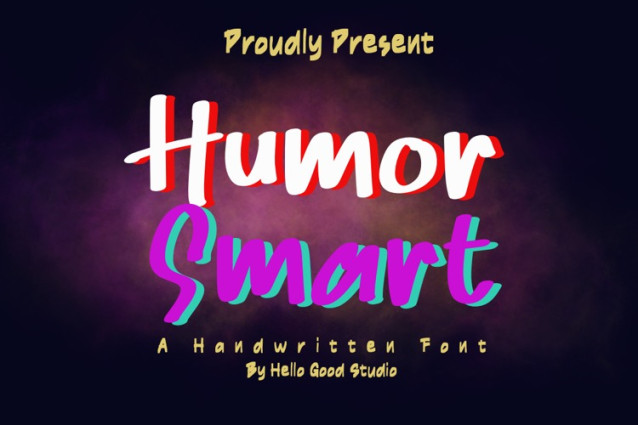
Humor Smart Font
Humor Smart Font – Elevate your visuals with a font that speaks volumes. Featuring a unique brush-stroke texture and vibrant 3D depth, this typeface is designed for brands that value wit and intelligence. Make your message stand out with the perfect mix of humor and style.